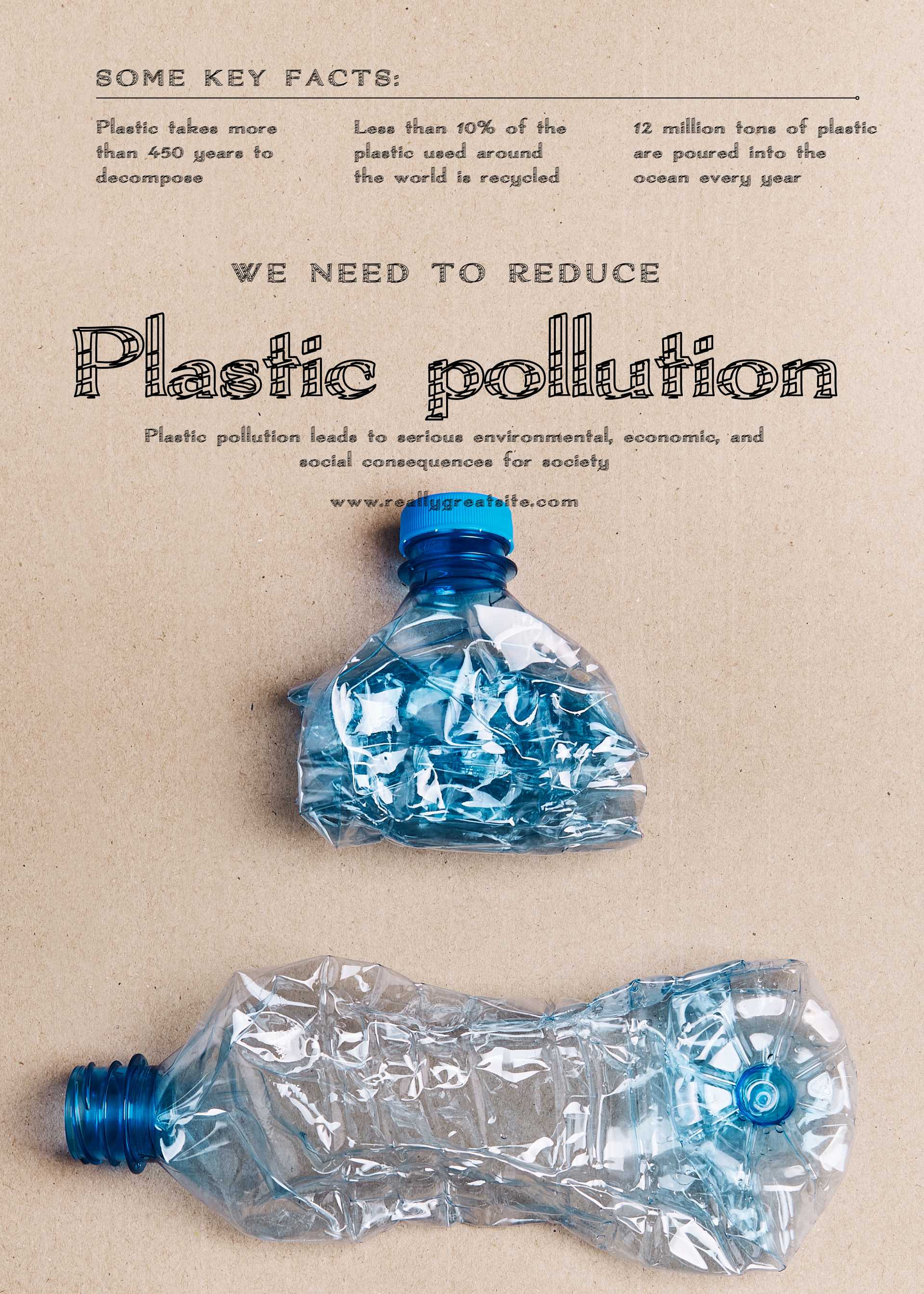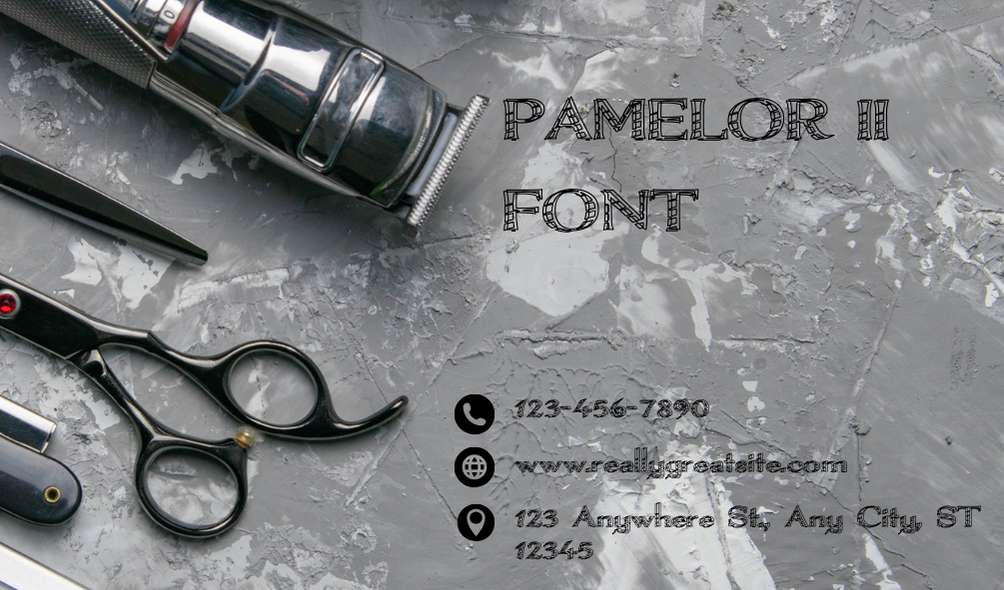
Pamelor II Font : Free Font Download
Pamelor II Font Details : Free Font Download
Pamelor II is a fun and playful font that can be used for a variety of designs. It is free for personal use and was designed by Graham Meade & Apostrophe. The font subfamily is Regular.
Pamelor II